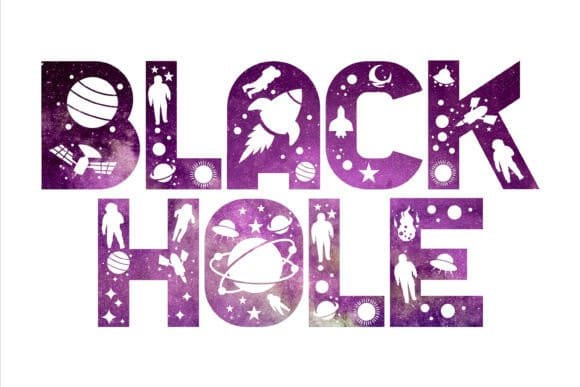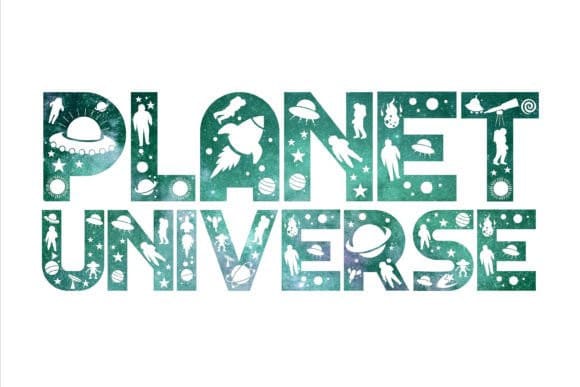
Astro Space Font
Astro Space Font is a font with an outer space theme, a font with ornaments about depicting objects in the universe, this font is perfect for natural science designs. You can see all the objects from the galaxy and solar system, because the ornament is in the font.